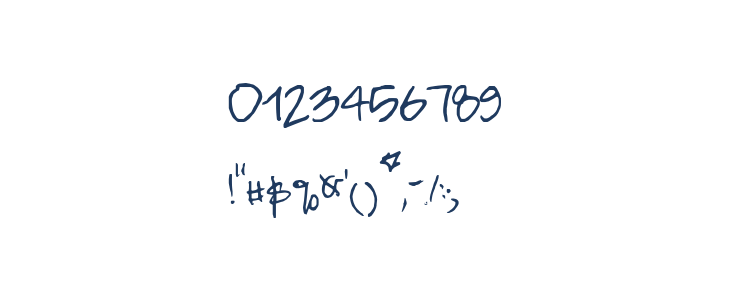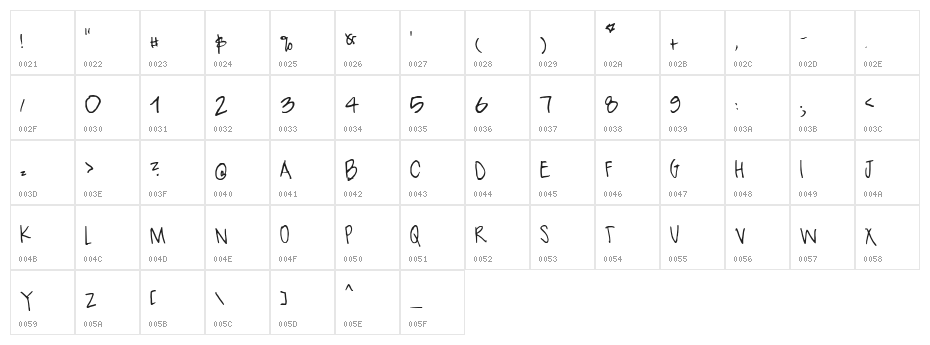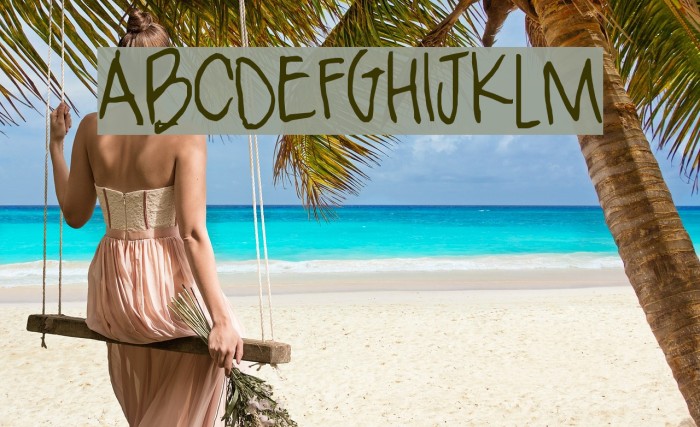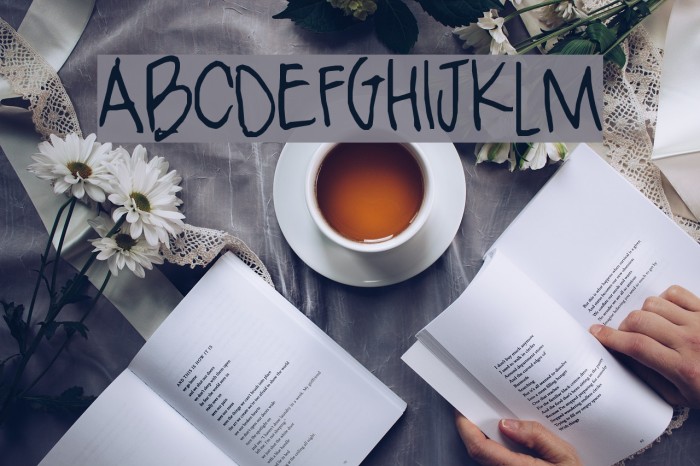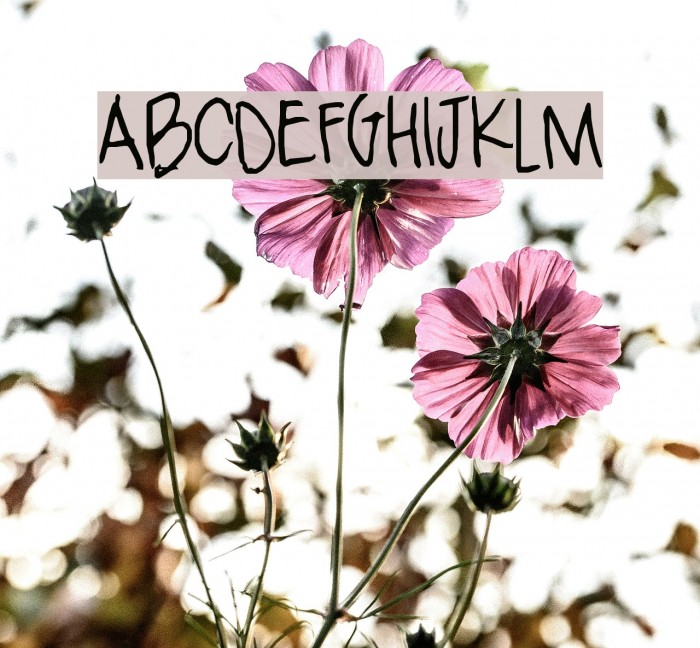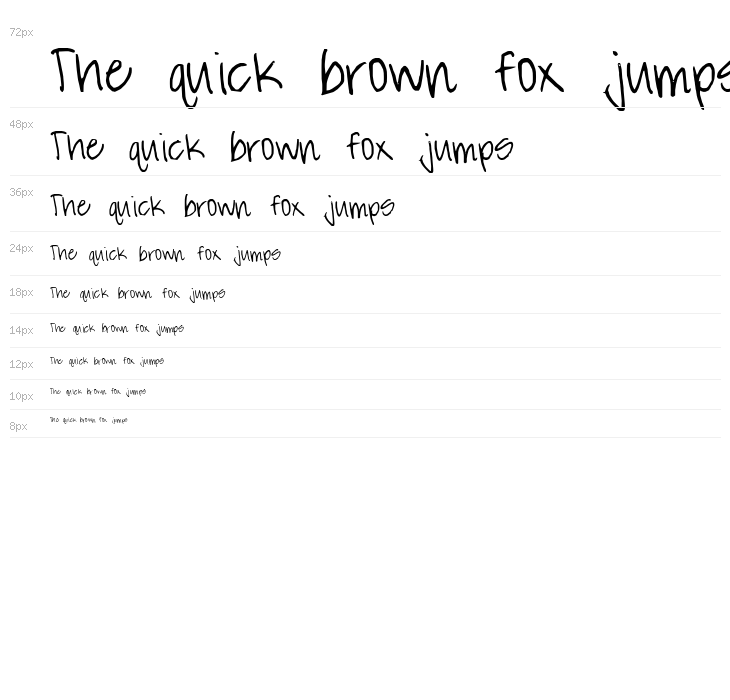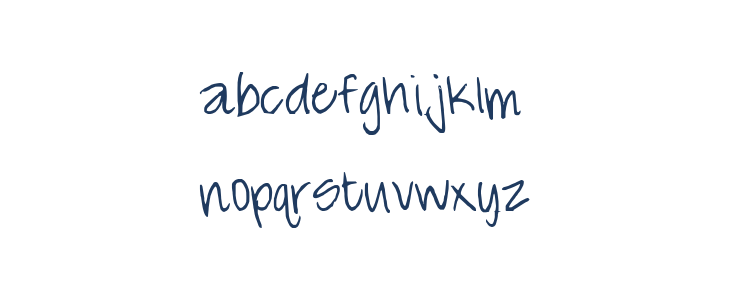
Sherlon Font
Sherlon Description
This font exhibits a playful and casual handwritten style, characterized by its irregular strokes and slightly tilted characters. The uppercase letters are bold and dynamic, while the lowercase letters maintain a consistent flow, adding to the font's informal charm. Numbers and special characters follow the same lively aesthetic, making them stand out with their unique flair. The overall appearance is friendly and approachable, suitable for projects that require a personal touch.
| Overall Style | Casual |
| Use Case | Headlines, Logos, Informal Text |
| Proposed Projects | Ideal for greeting cards, personal invitations, children's books, and creative branding projects. |